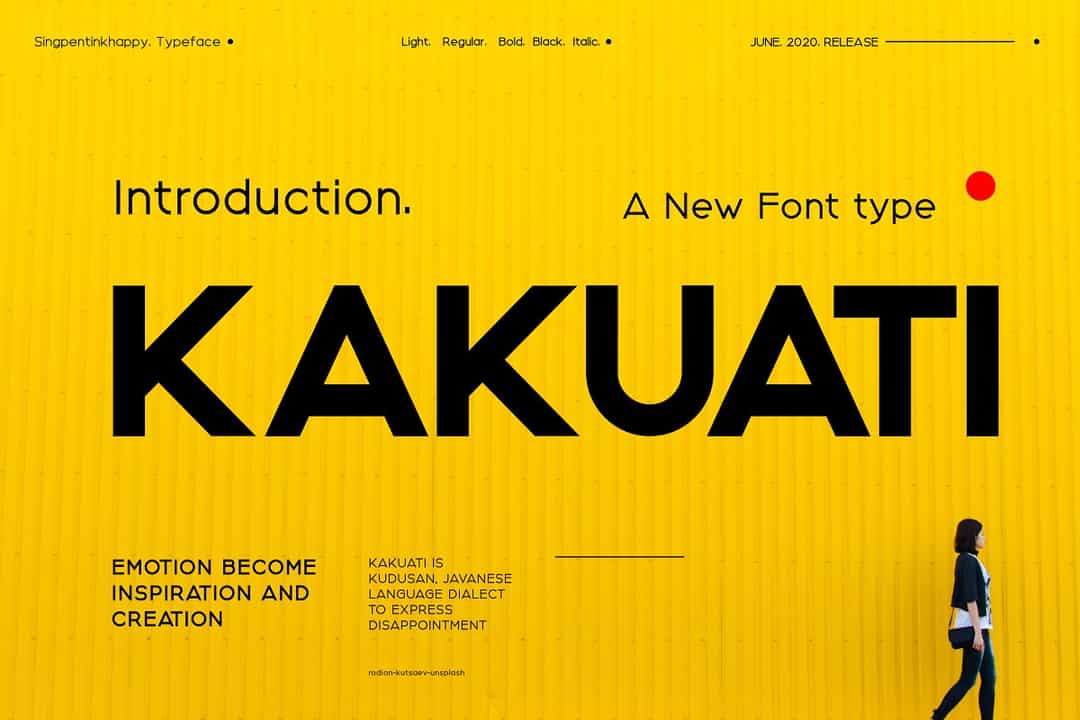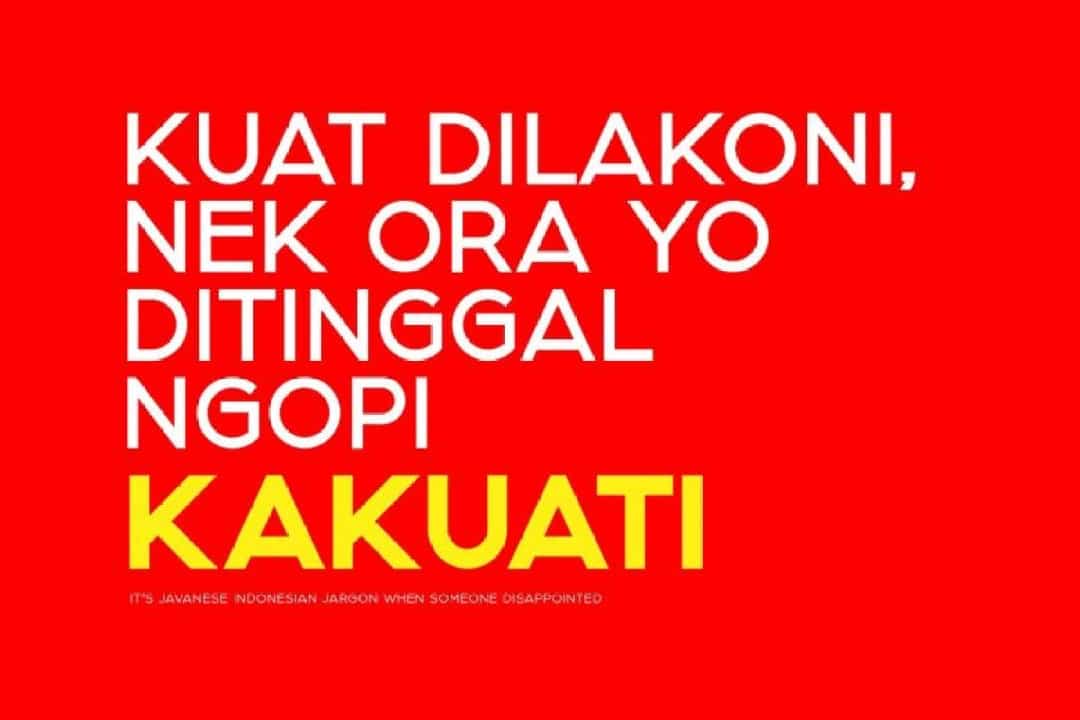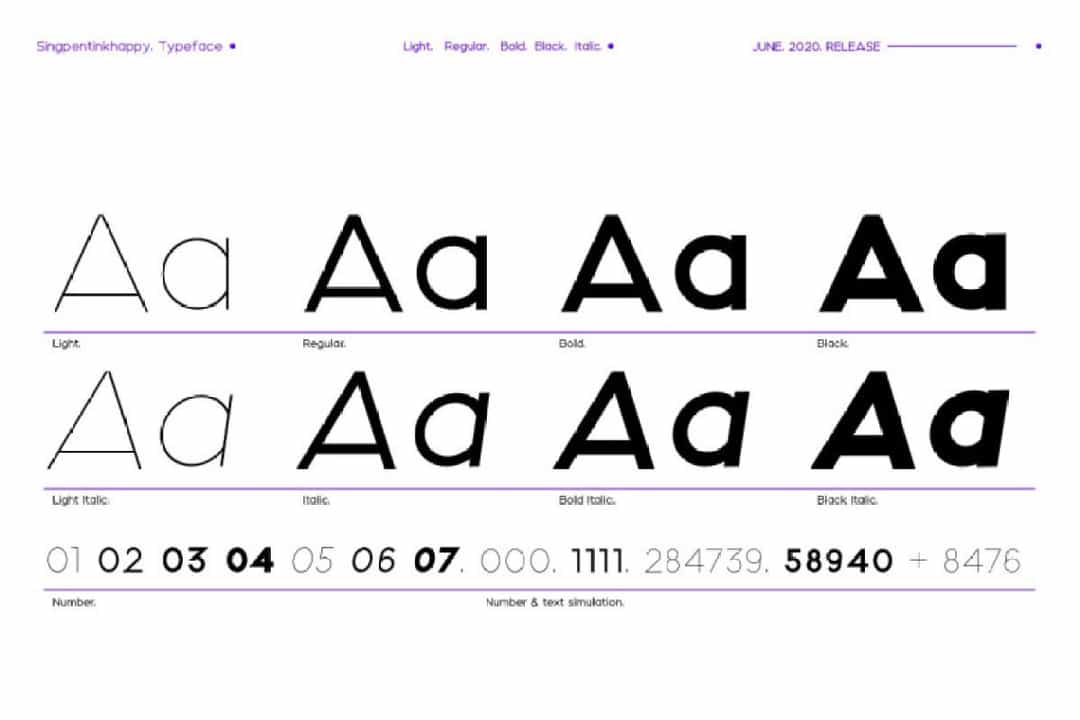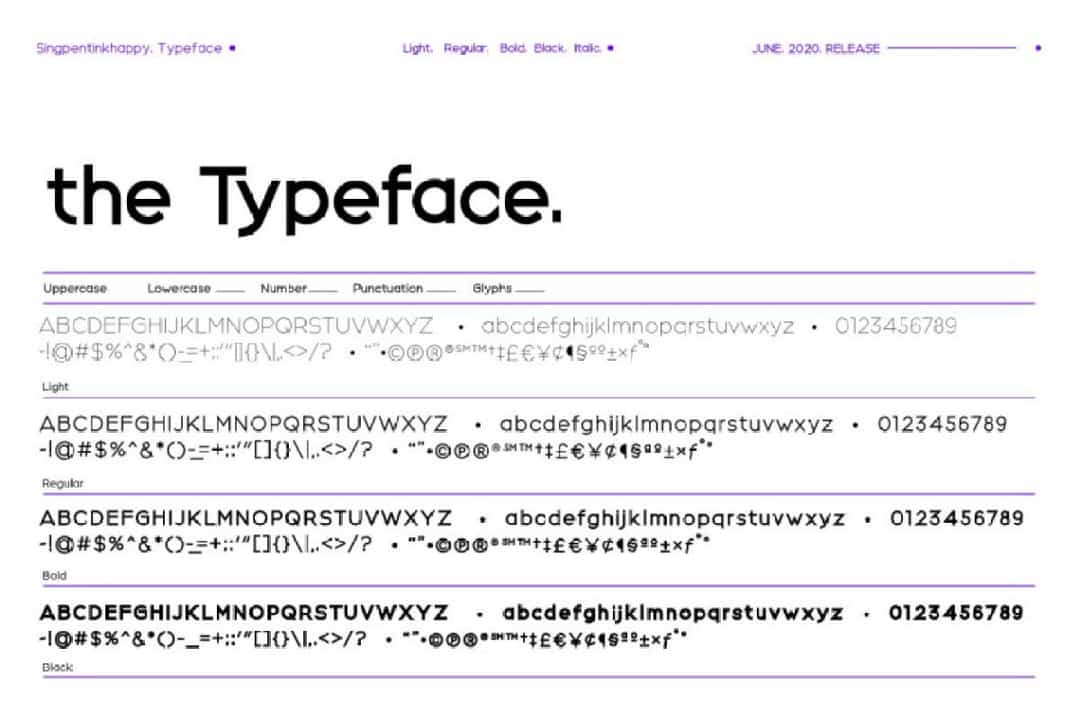
Kakuati an elegant and captivating sans-serif type of family which combines contemporary and classic vibes that permit you to take visually a journey from the thin body slabs to extremely thick display without serif.